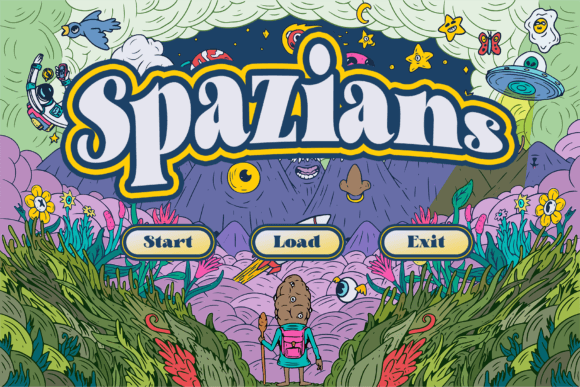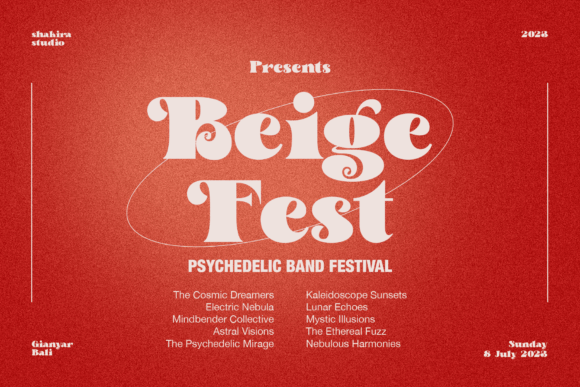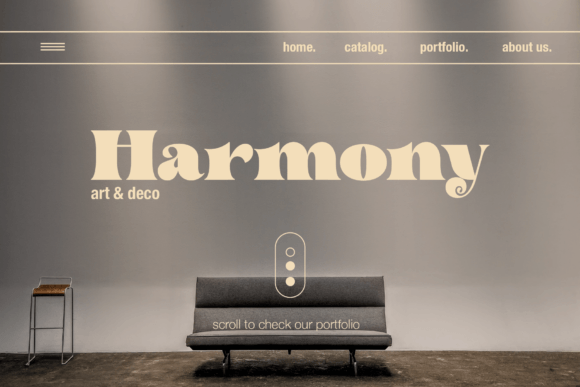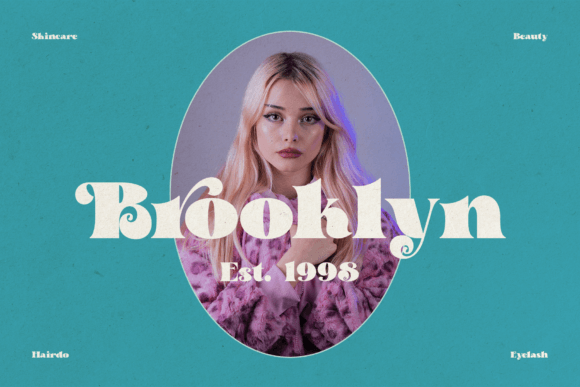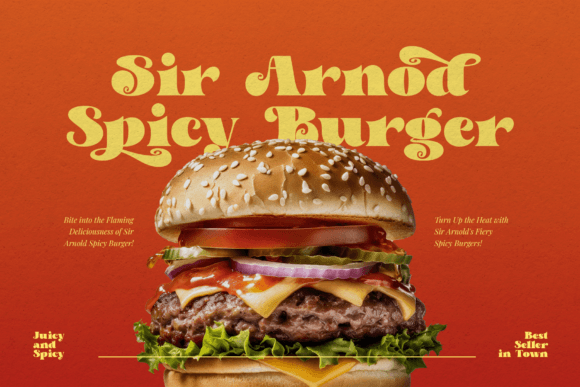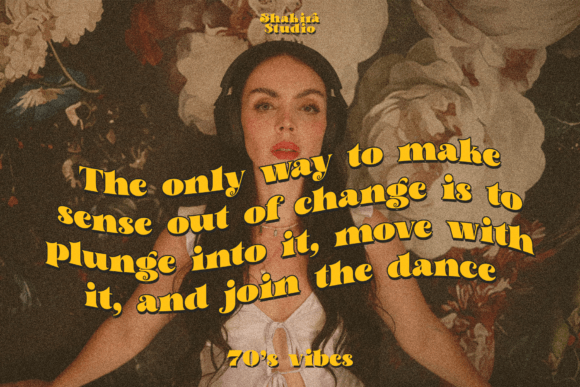
Unveiling the Enigmatic Pandora Font: A Bold Serif for Unconventional Designs
In the realm of typography, few fonts manage to capture the essence of uniqueness and boldness as effectively as the Enigmatic Pandora font. This serif font stands out with its psychedelic charm, making it an ideal choice for designers and crafters looking to infuse their projects with a sense of visual tension and extraordinary appeal. In this article, we’ll delve into the characteristics of the Enigmatic Pandora font, explore its suitability for various design projects, and discuss how it can elevate your creative endeavors.
The Distinctive Features of Enigmatic Pandora
Enigmatic Pandora is not just another serif font; it’s a bold statement in the world of typography. Its design combines the traditional elegance of serif fonts with a psychedelic twist, resulting in a truly unique visual experience. Each letter in the Enigmatic Pandora font exudes boldness, making it perfect for projects that demand attention and seek to stand out from the crowd.
The psychedelic uniqueness of Enigmatic Pandora can be attributed to its intricate details and unconventional design elements. The font’s serifs are not just simple flourishes; they are carefully crafted to add a layer of complexity and intrigue to the text. This distinctive feature makes Enigmatic Pandora a versatile font that can be used in a variety of creative projects, from artistic expressions to commercial designs.
Ideal Applications for Enigmatic Pandora
Given its bold and unique characteristics, Enigmatic Pandora is particularly well-suited for design projects that aim to express visual uniqueness and tension. Here are some of the ideal applications for this remarkable font:
- Titles and Headings: The boldness of Enigmatic Pandora makes it an excellent choice for titles and headings, where grabbing the reader’s attention is paramount.
- Posters and Flyers: For posters and flyers, Enigmatic Pandora can add a striking element that draws viewers in and communicates the essence of the message effectively.
- Illustrations and Art Projects: The psychedelic uniqueness of the font makes it a great fit for illustrations and art projects that seek to push boundaries and explore new visual territories.
- Album Designs: Musicians and designers can leverage Enigmatic Pandora to create bold and eye-catching album covers that reflect the music’s genre and style.
- Branding and Packaging: For brands looking to establish a strong visual identity, Enigmatic Pandora can be used to create memorable logos, packaging, and marketing materials.
Tips for Using Enigmatic Pandora Effectively
While Enigmatic Pandora is undoubtedly a powerful font, its effectiveness largely depends on how it’s used. Here are some tips to help you make the most of this bold serif font:
- Pair with Simpler Fonts: To maintain readability, especially in body text, consider pairing Enigmatic Pandora with simpler fonts. This contrast will highlight the uniqueness of the font and ensure your message is conveyed clearly.
- Experiment with Colors: Don’t be afraid to experiment with different colors and gradients. The boldness of Enigmatic Pandora can be further accentuated with vibrant colors that match the theme of your project.
- Consider the Context: Ensure that the use of Enigmatic Pandora aligns with the project’s tone and audience. Its bold and psychedelic nature makes it more suitable for creative and avant-garde projects.
| Font Name | Enigmatic Pandora Font |
| Author | Shakira Studio |
The Enigmatic Pandora font offers a refreshing alternative to traditional typography, bringing a bold and psychedelic uniqueness to the table. Its suitability for a wide range of design projects, from titles and posters to illustrations and album designs, makes it a valuable addition to any designer’s toolkit. By understanding the distinctive features of Enigmatic Pandora and applying it thoughtfully, designers and crafters can create visually stunning projects that leave a lasting impression.
Whether you’re looking to push the boundaries of conventional design or simply want to add a touch of boldness to your creative projects, Enigmatic Pandora is undoubtedly worth exploring. With its unique blend of psychedelic charm and serif elegance, this font is poised to make a significant impact in the world of design.